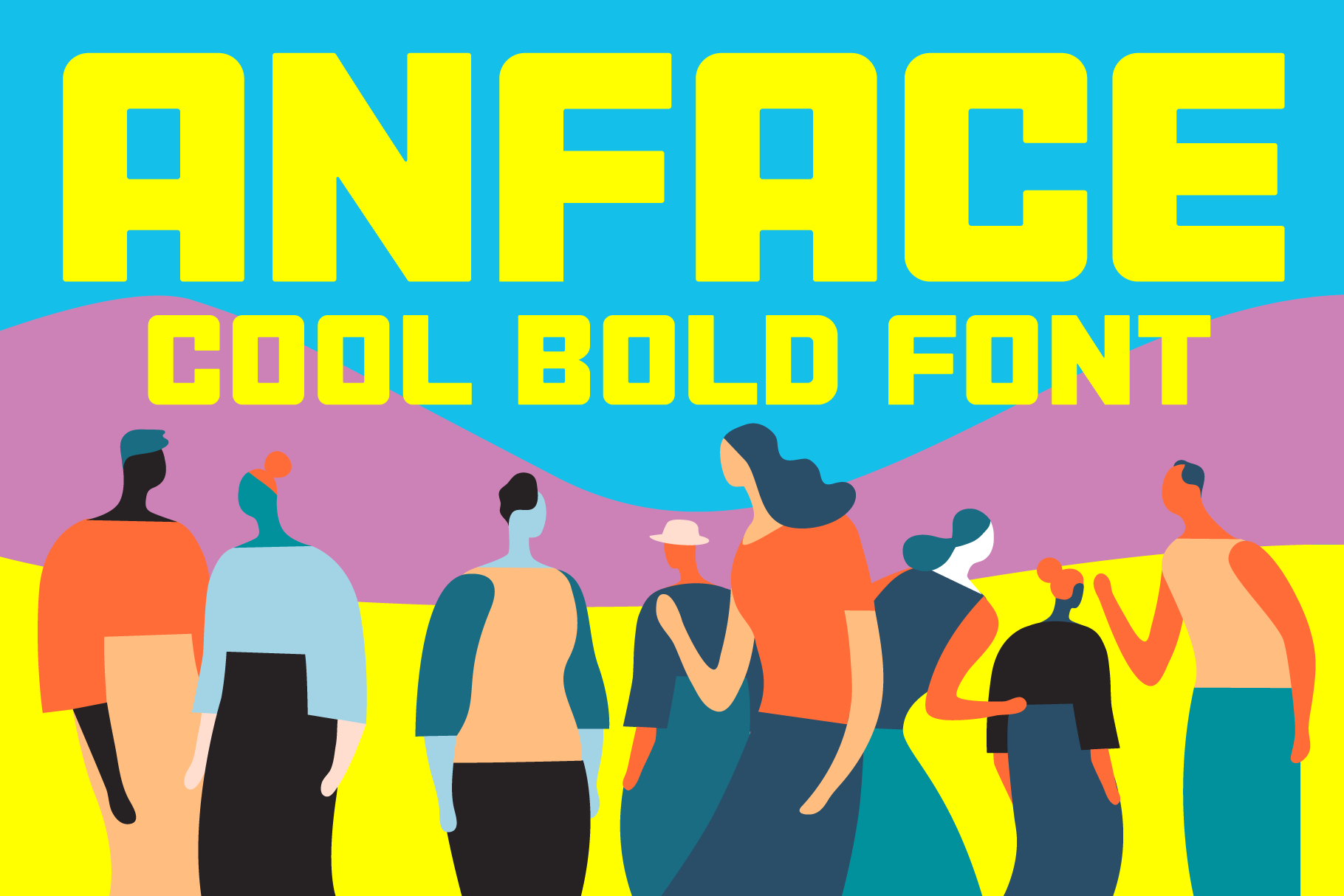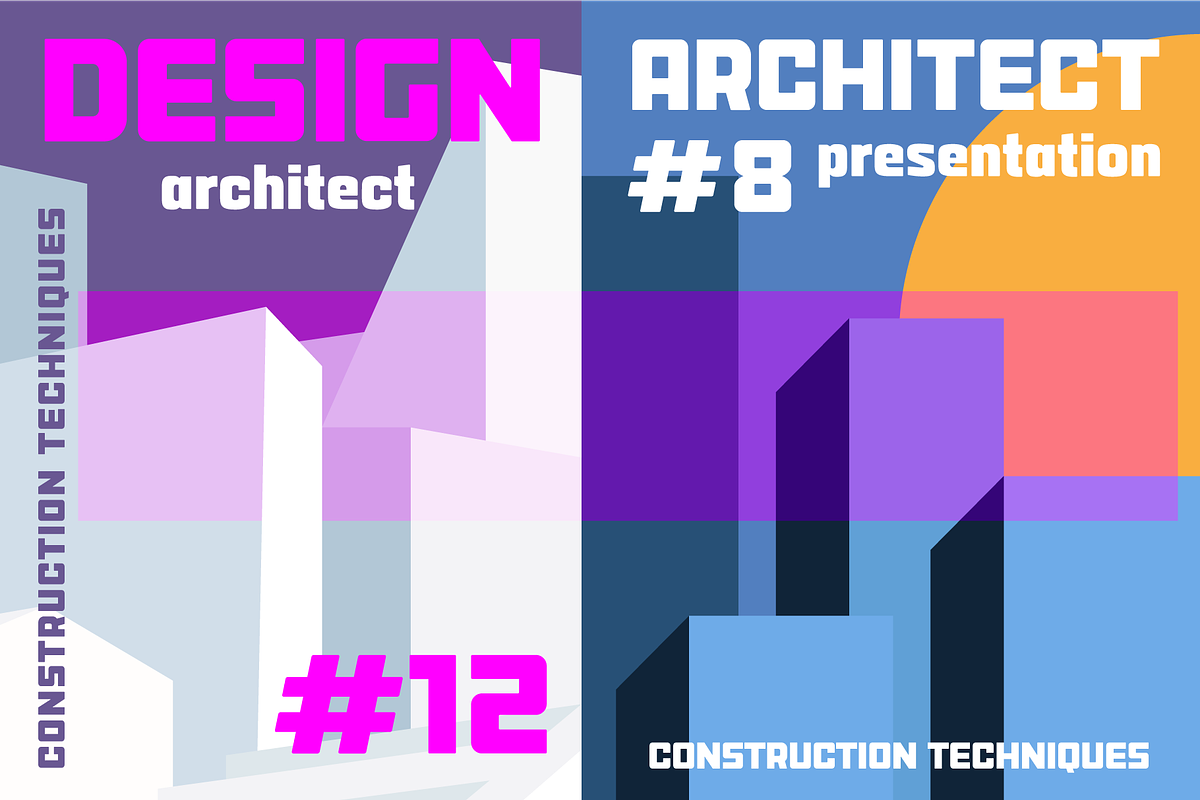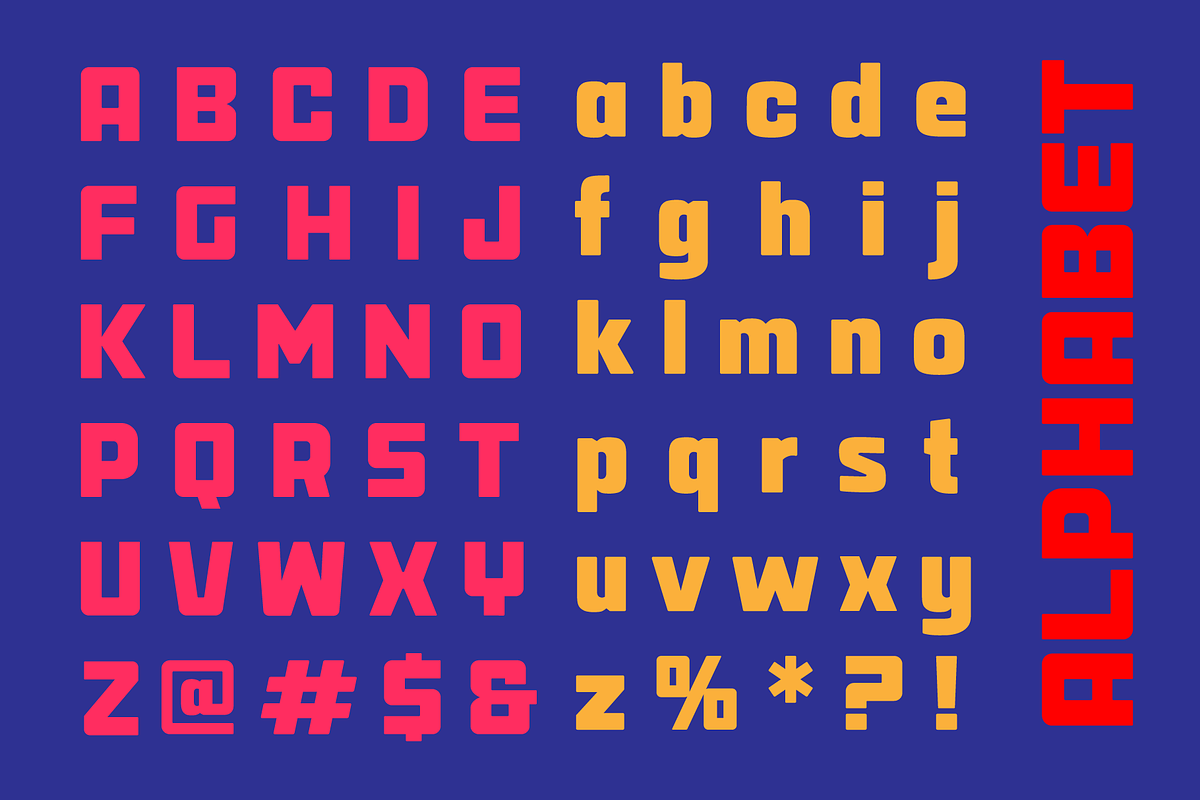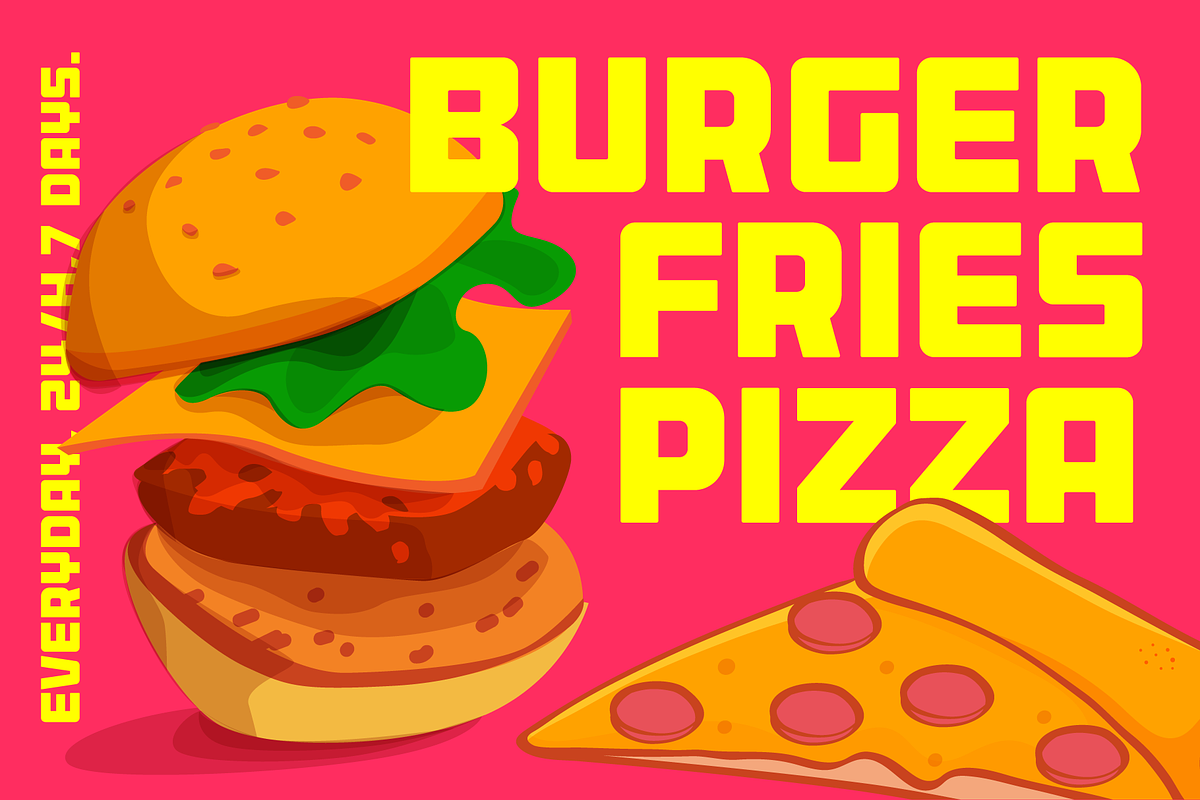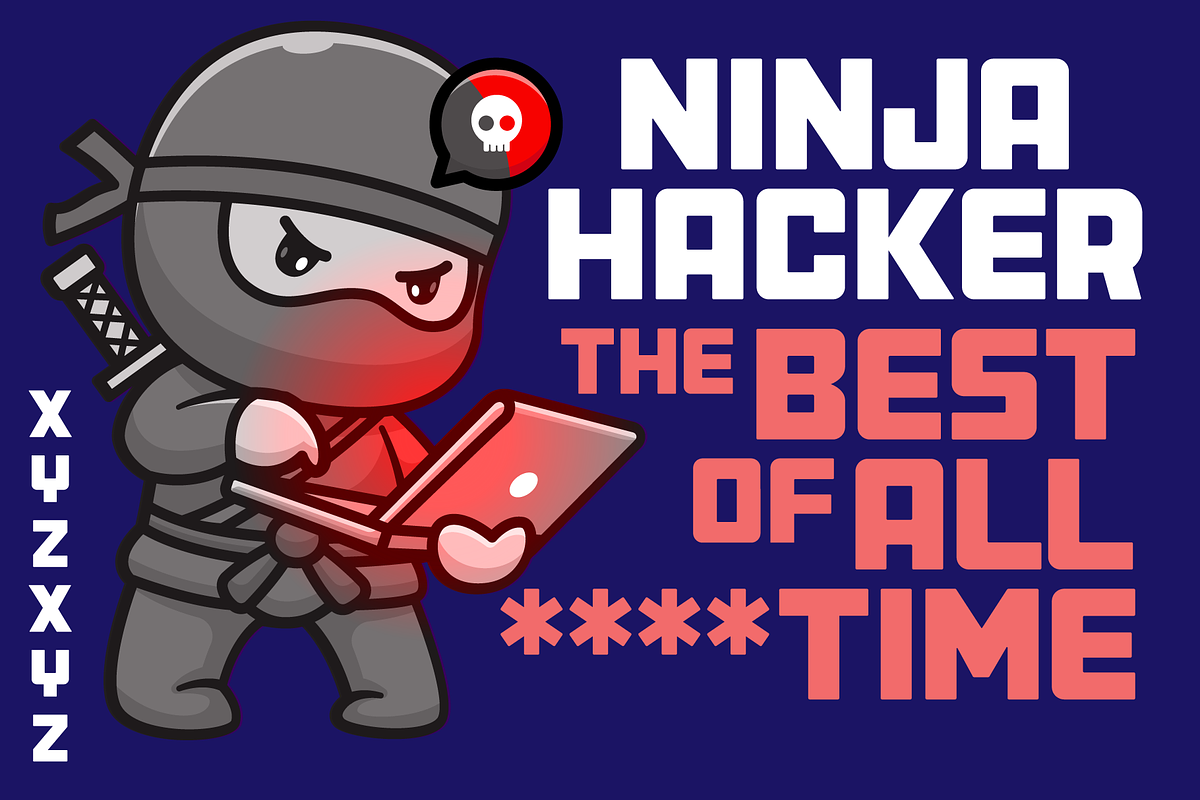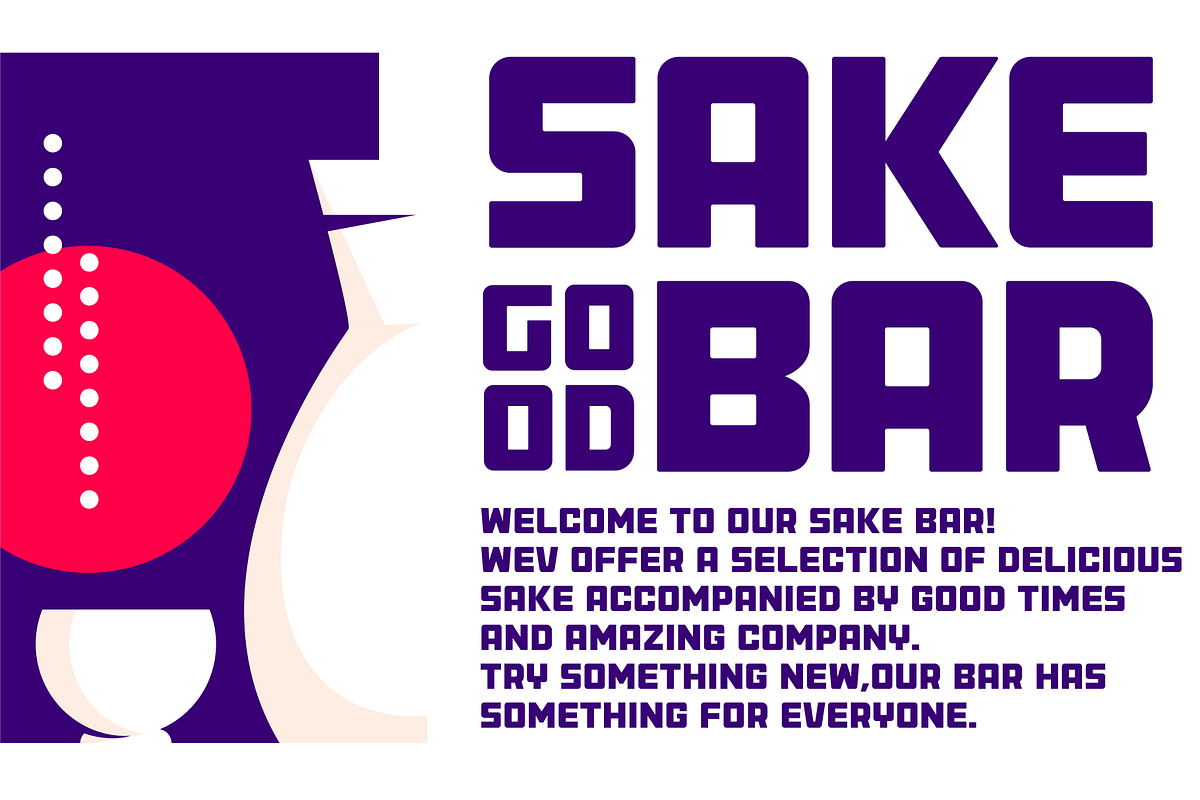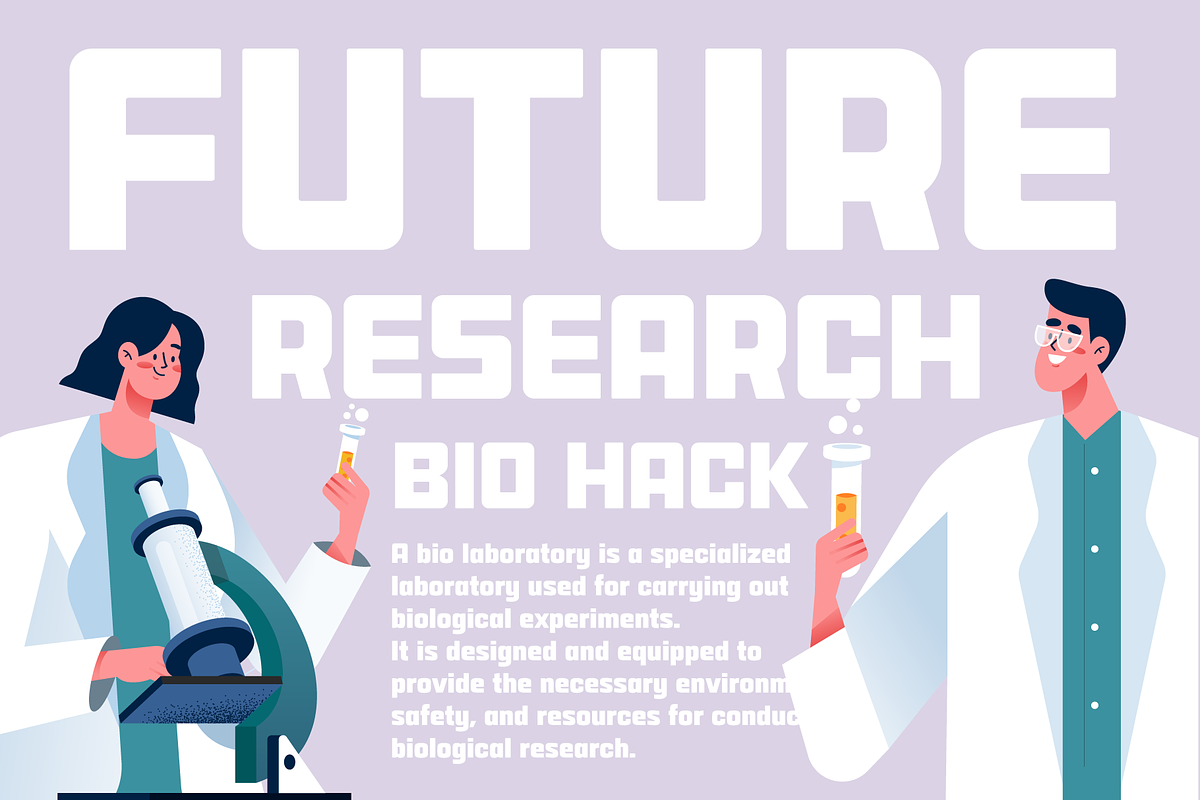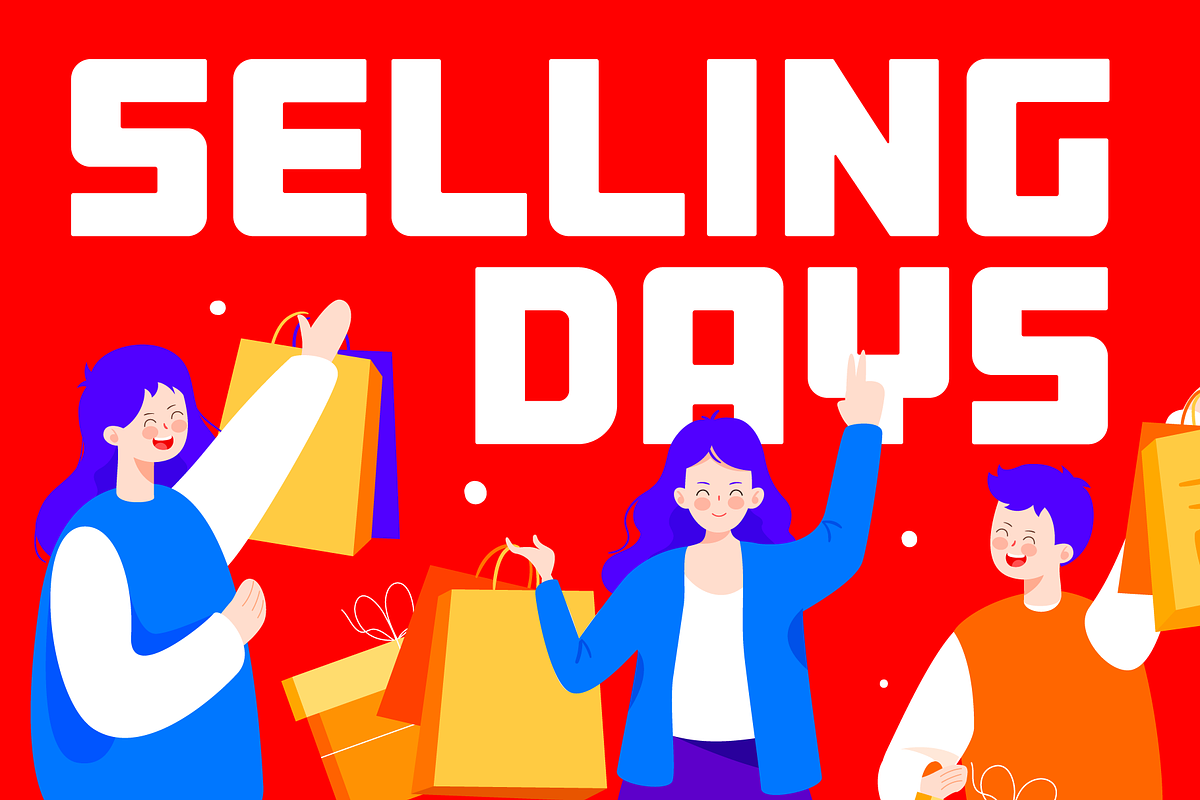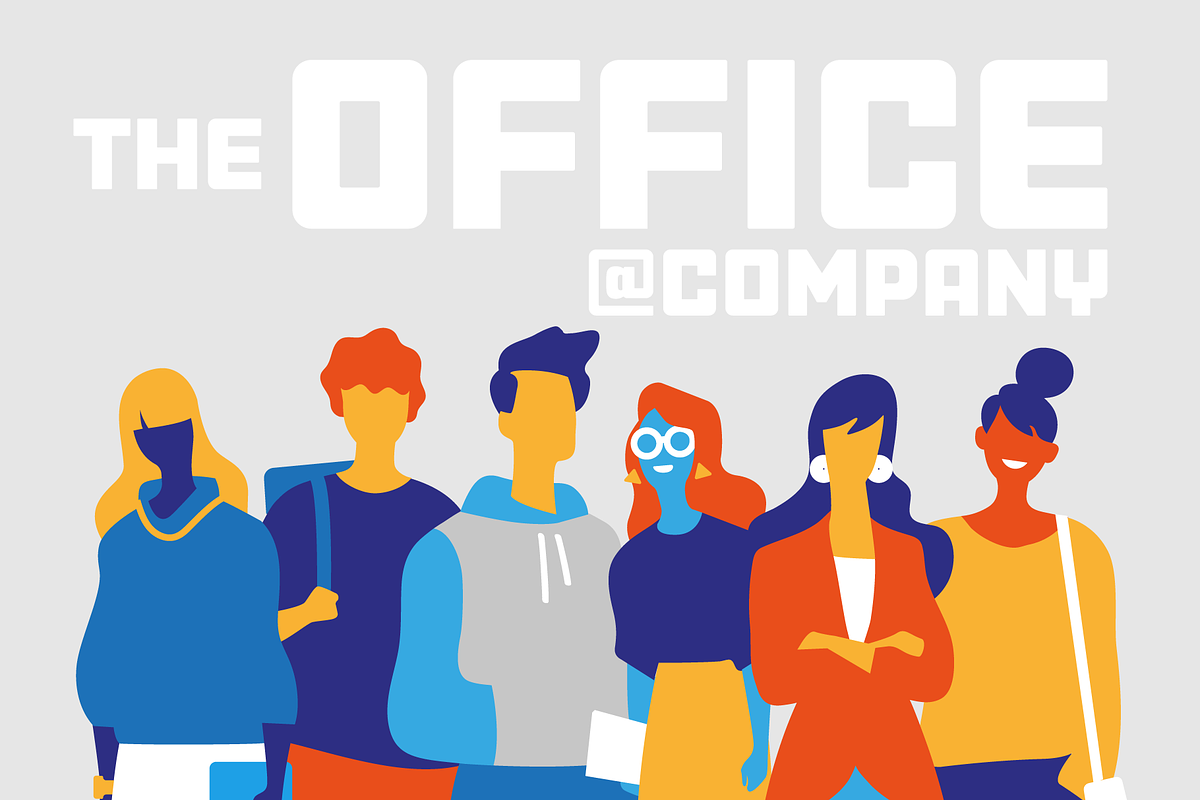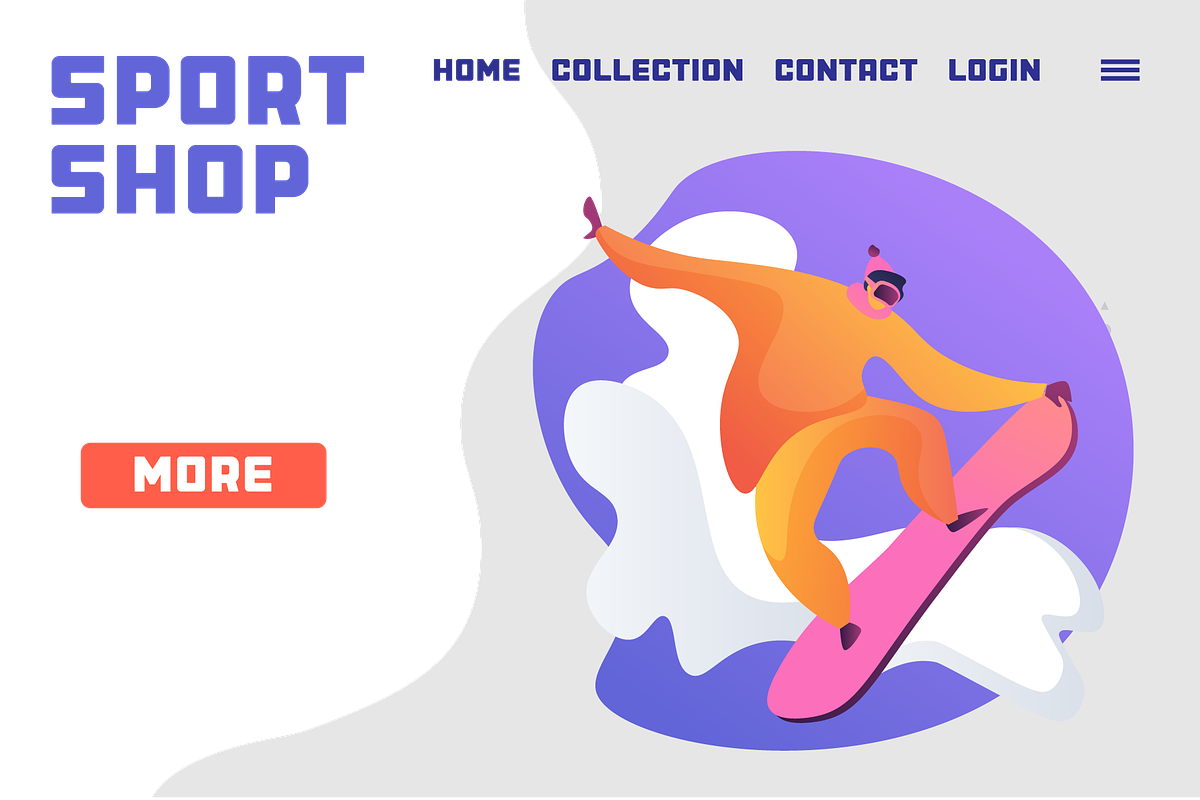
Anface Modern - Square Font
Anface is a bold, square font with a playful, creative letters. This font is unique because of its bold and strong letterforms that evoke a feeling of confidence and strength. The square shapes add a modern, geometric element that gives it a cool and contemporary look.